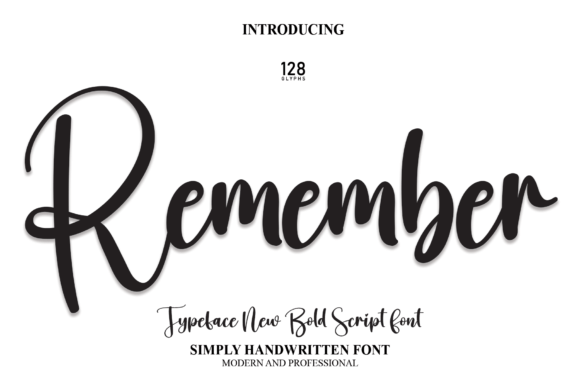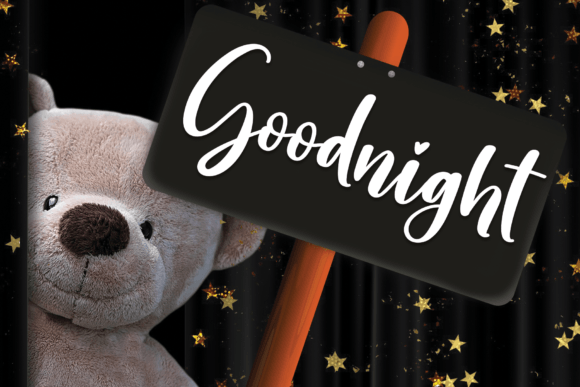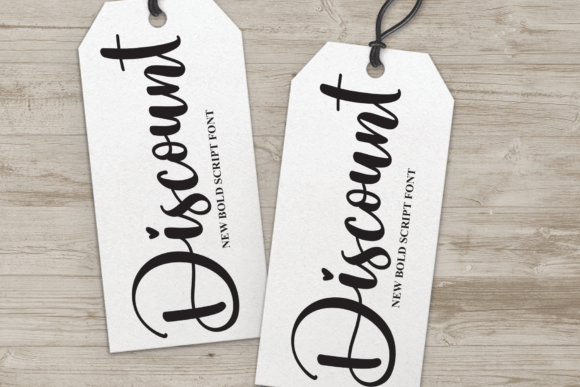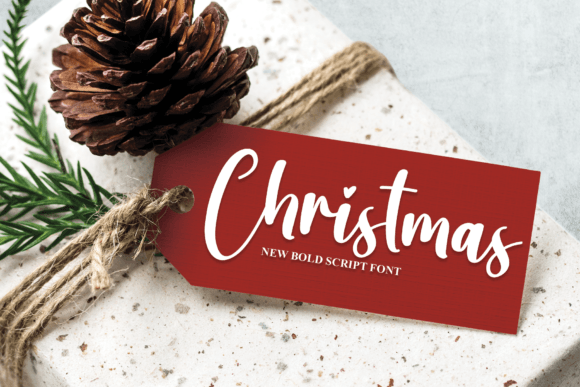
About Remember Font
The latest style of this font features letters that are tailor-made for a diverse range of applications. Its versatility makes it an excellent choice for a variety of design needs, enhancing the visual appeal of your projects. Whether you’re working on wall displays, wedding invitations, or social media post logos, this font is designed to meet your creative requirements.
Its handwritten taste adds a personal and organic touch to your designs. Imagine using it for eye-catching advertisements or on product packaging to create a distinct and memorable brand image. The font’s adaptability extends to product designs, labels, and photography, where it can seamlessly integrate with different visual elements.
For watermarks, invitations, and stationery, this font brings a unique and customized feel, making your text stand out with a touch of handwritten elegance. The fluidity of the letters ensures that they blend seamlessly into diverse design contexts, adding character and charm.
In essence, this font is a versatile tool for any project that requires a handwritten aesthetic. Its latest style letters are crafted to enhance the visual appeal of your work across a spectrum of creative endeavors. Let it be the go-to choice that brings a personalized and artistic flair to your wall displays, invitations, and everything in between.